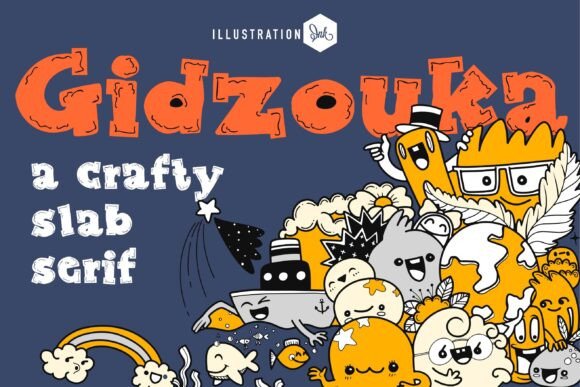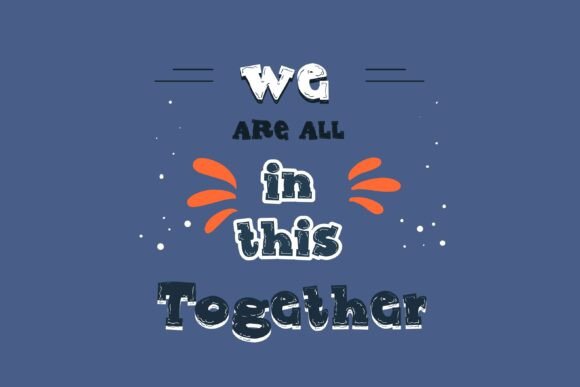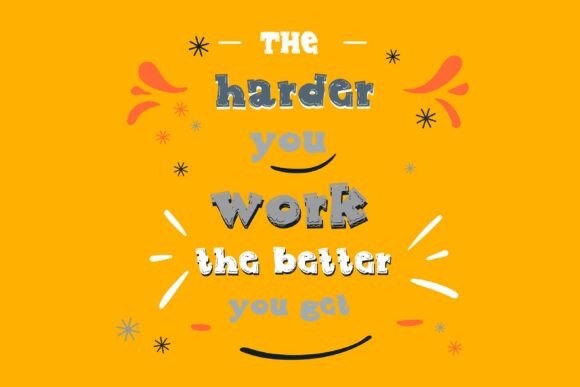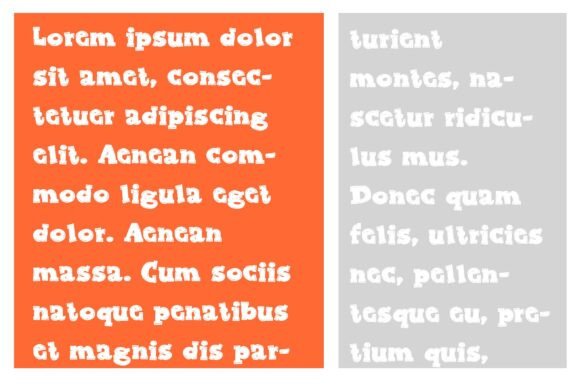
Gidzouka Font: A Cute Handwritten Serif Font for Playful Designs
About the Gidzouka Font
Step up your design game with Gidzouka Font, a font that exudes confidence and style. This hand-crafted font is a whimsical, toggled serif with lots of fun texture.
Gidzouka’s playful, textured serifs make it ideal for headlines, short text blocks on posters, and branding elements where a touch of whimsy is desired. It works exceptionally well for invitations, packaging for artisan products, or children’s books. However, its handcrafted nature and varying stroke weights make it less suitable for body copy or UI elements requiring high legibility.
Consider pairing Gidzouka with a clean sans-serif like Montserrat for a balanced contrast, or a more geometric sans-serif like Futura for a modern feel. A script font with a similarly playful, yet slightly more formal quality could also work well, depending on the desired effect.
The overall personality of Gidzouka is friendly and approachable, yet retains a degree of sophistication due to its handcrafted nature. It projects a sense of approachability and charm, making it suitable for brands aiming for a handcrafted, artisan, or slightly quirky image.
Gidzouka Font Usage Examples
Gidzouka Font Example